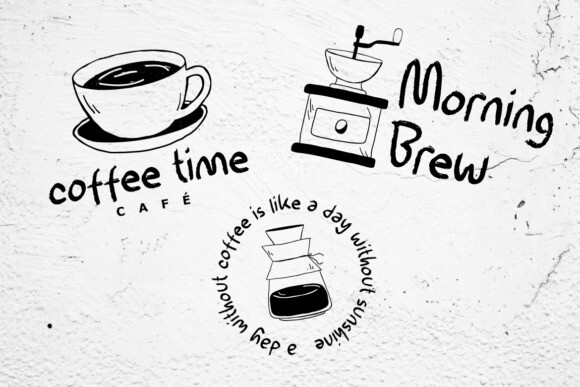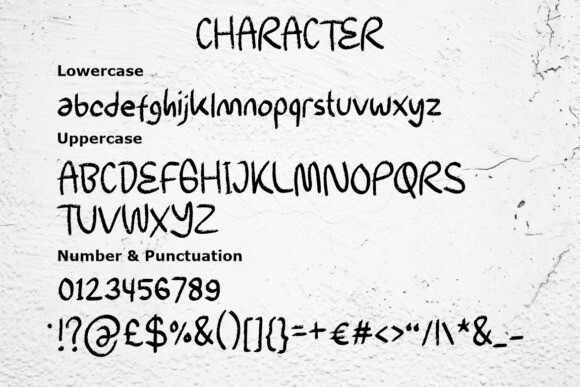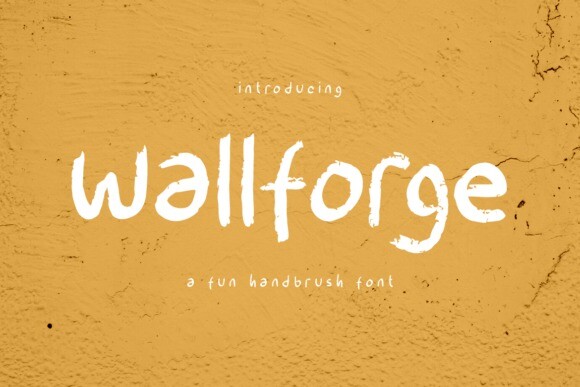
Wallforge Font
Wallforge Font – A Fun Handbrush Font, a whimsical typeface that brings a burst of creativity to any project. With its quirky and spontaneous brush strokes, this font dances across the page with an urban coolness that’s hard to ignore. Each letter is crafted with joyous abandon, embodying the carefree spirit of street art while maintaining an air of professional charm. Whether you’re crafting logos or spicing up your branding, Wallforge adds that personal touch with its happy-go-lucky vibe.
Perfect for everything from invitation cards to bold titles on book covers or posters, this versatile display font has all you need to make your designs stand out. Its cute yet fancy freestyle lettering is like coffee for your creative soul – energizing and tasty! Use Wallforge for movie titles or magazine layouts; its charming imperfections are sure to captivate your audience. Embrace the delightful freestyle monoline appearance of Wallforge and let your designs sing with personality!